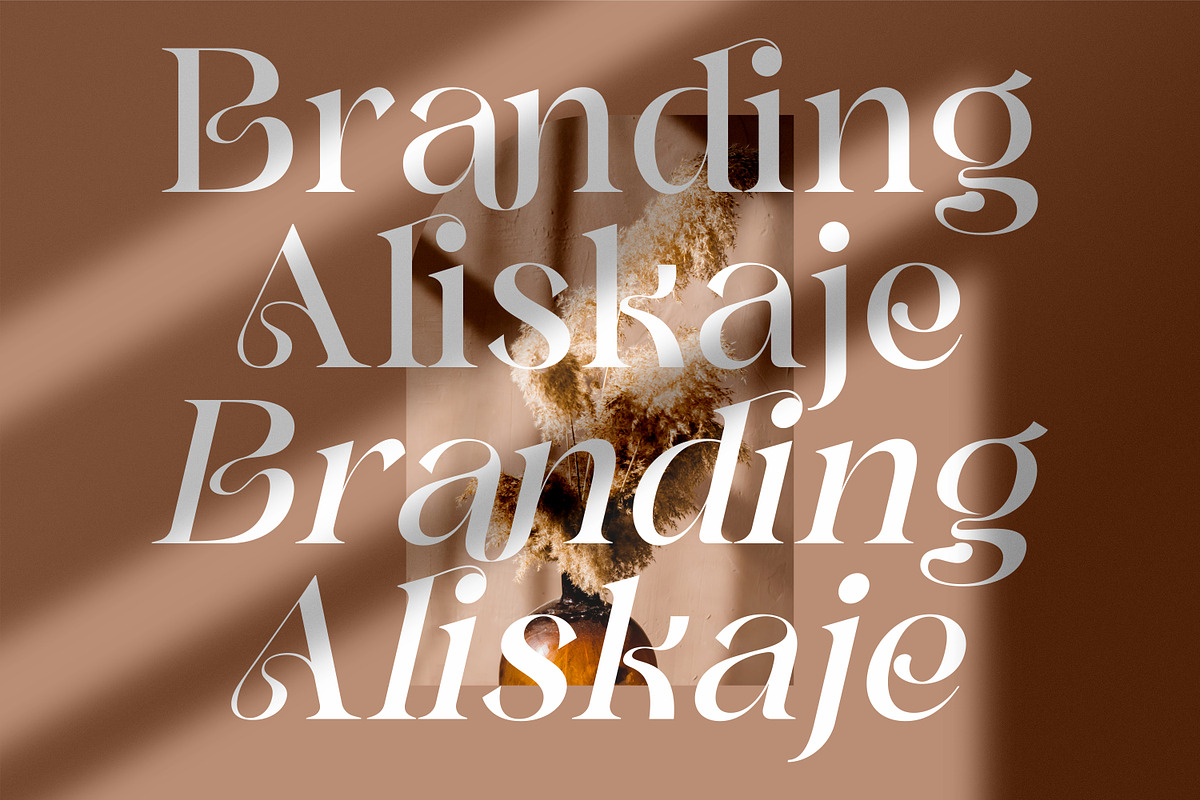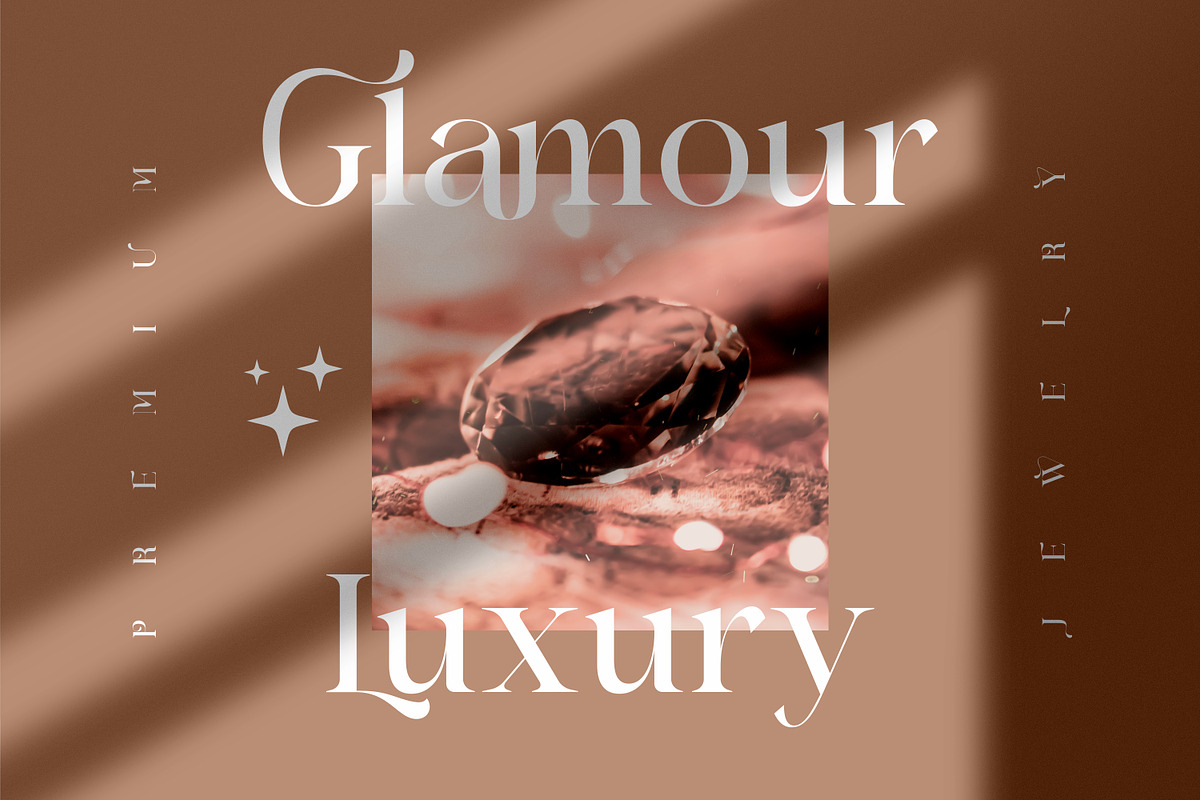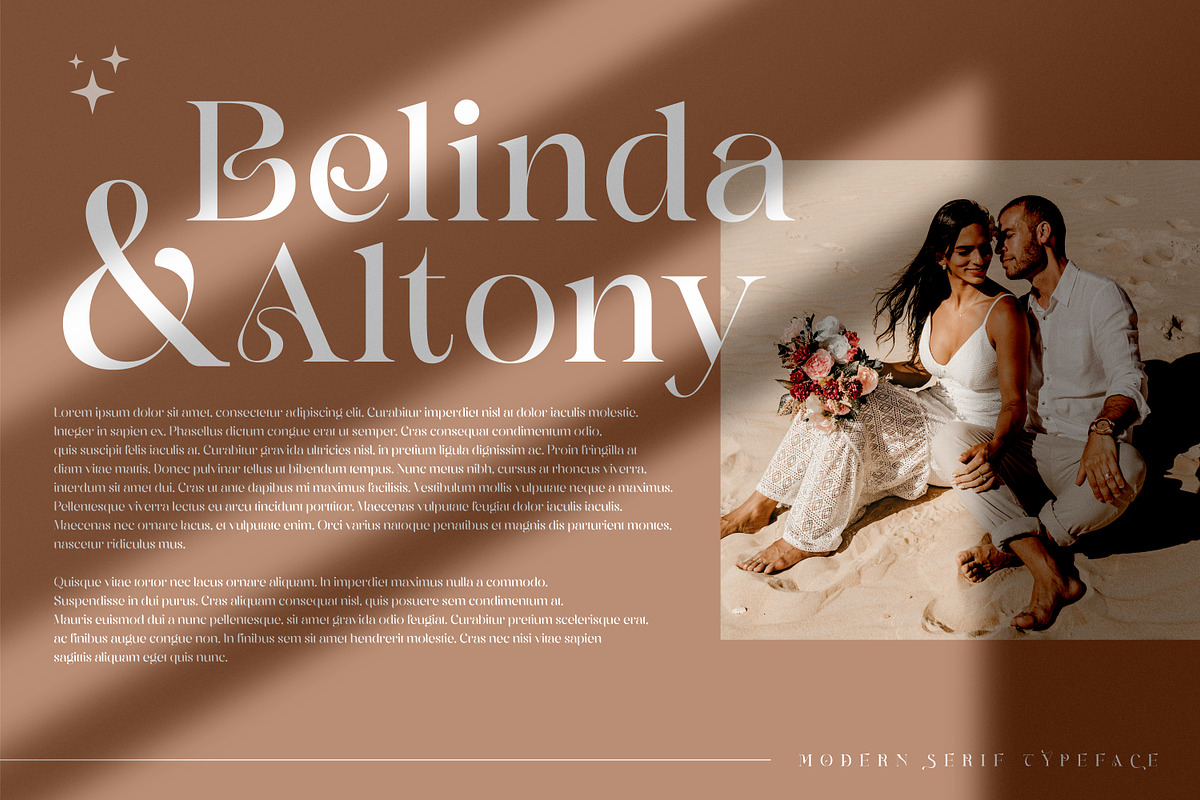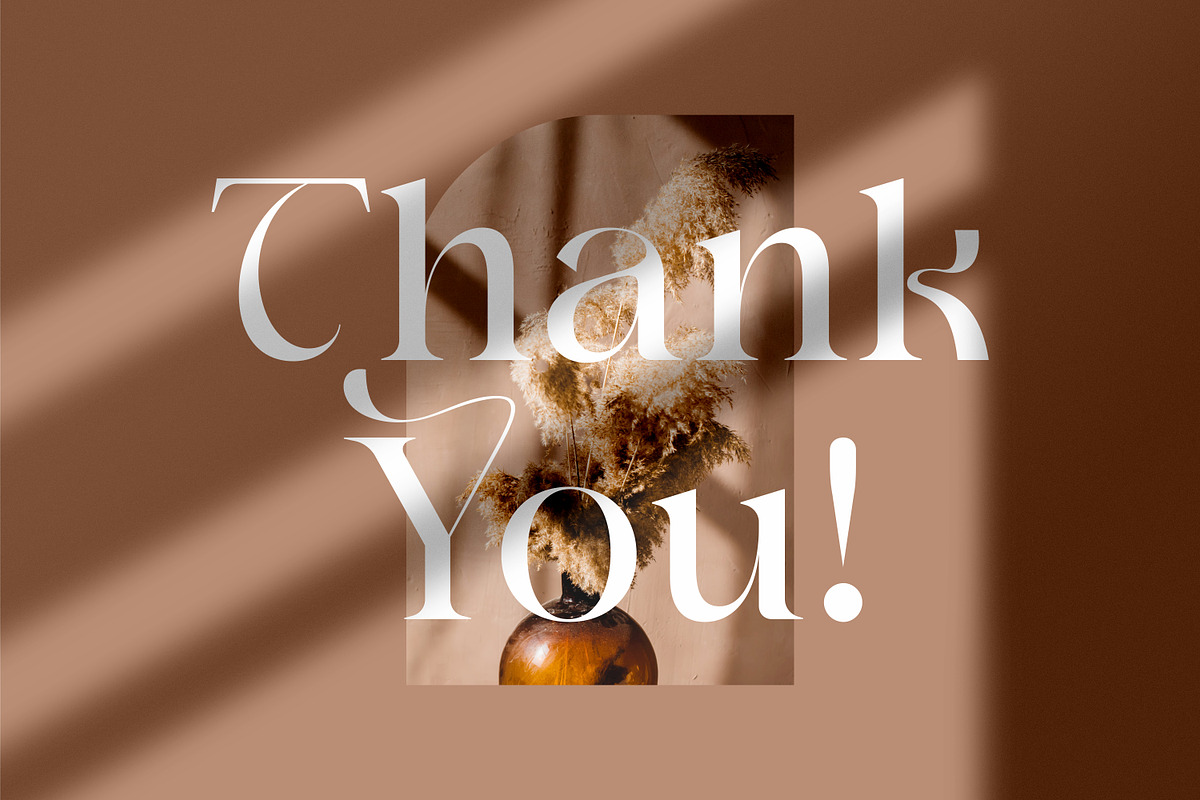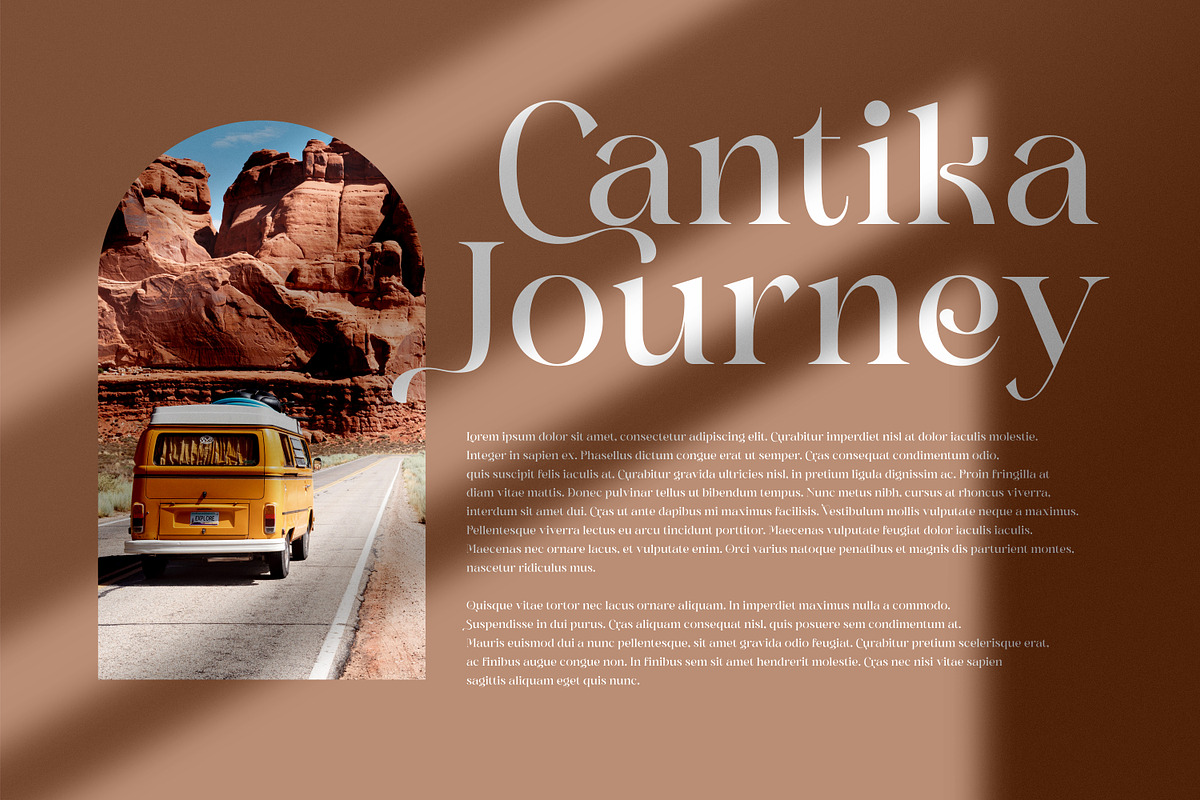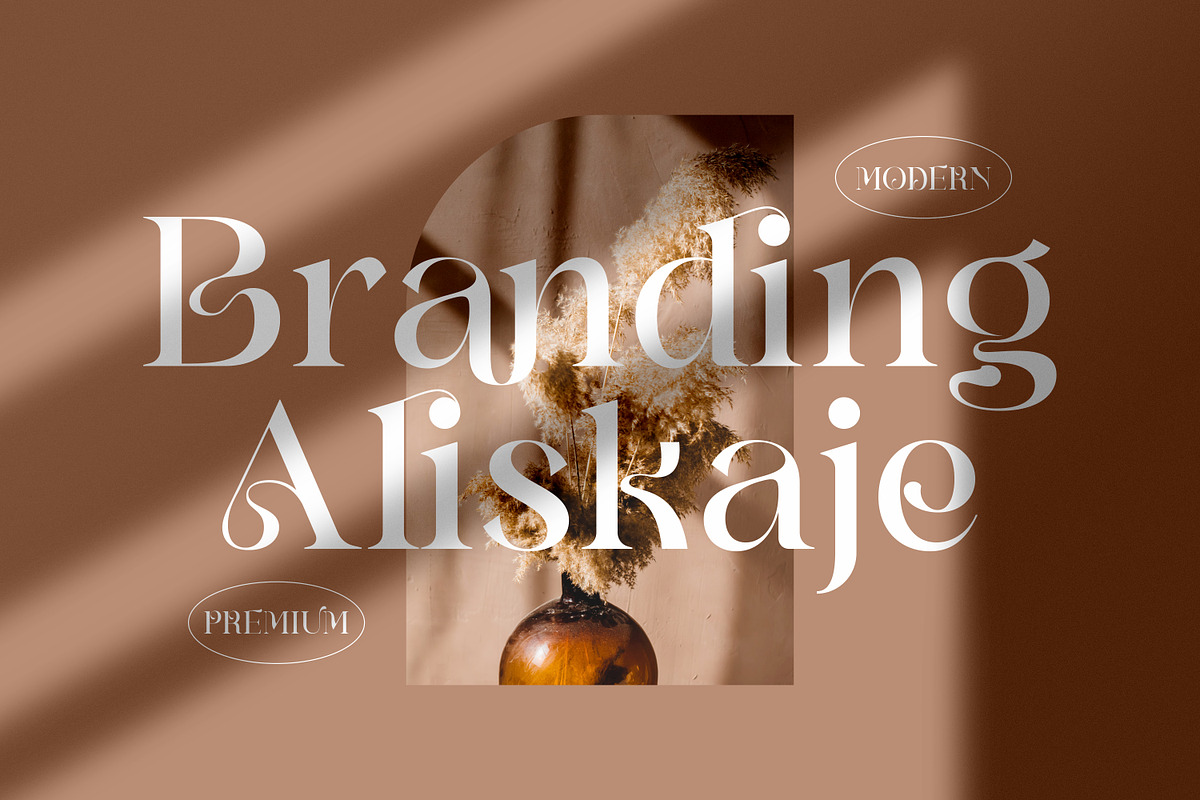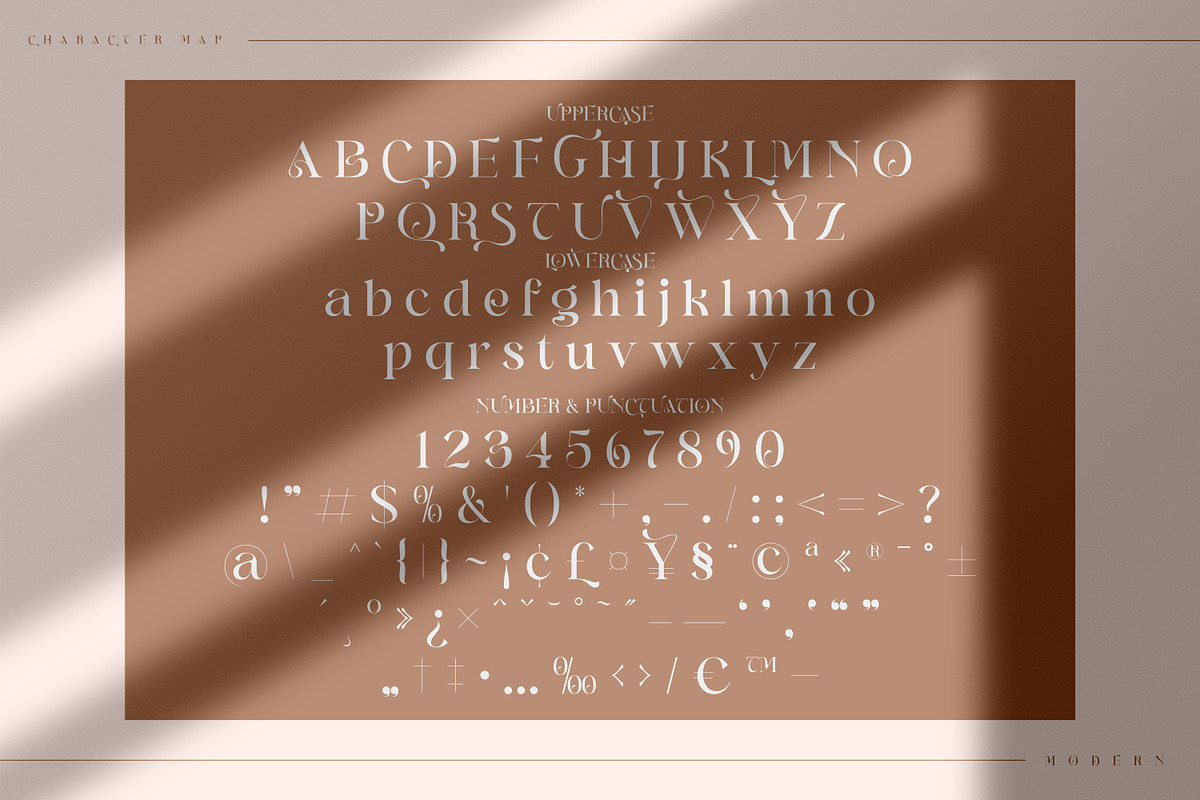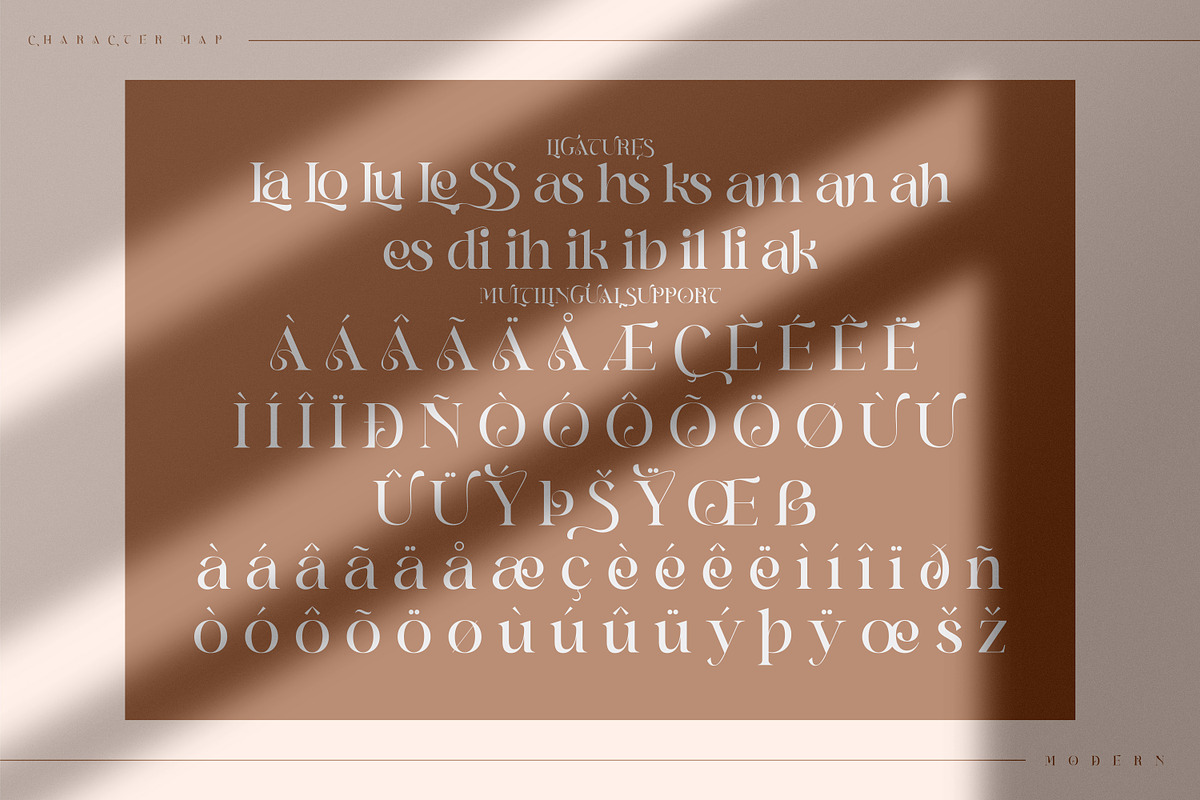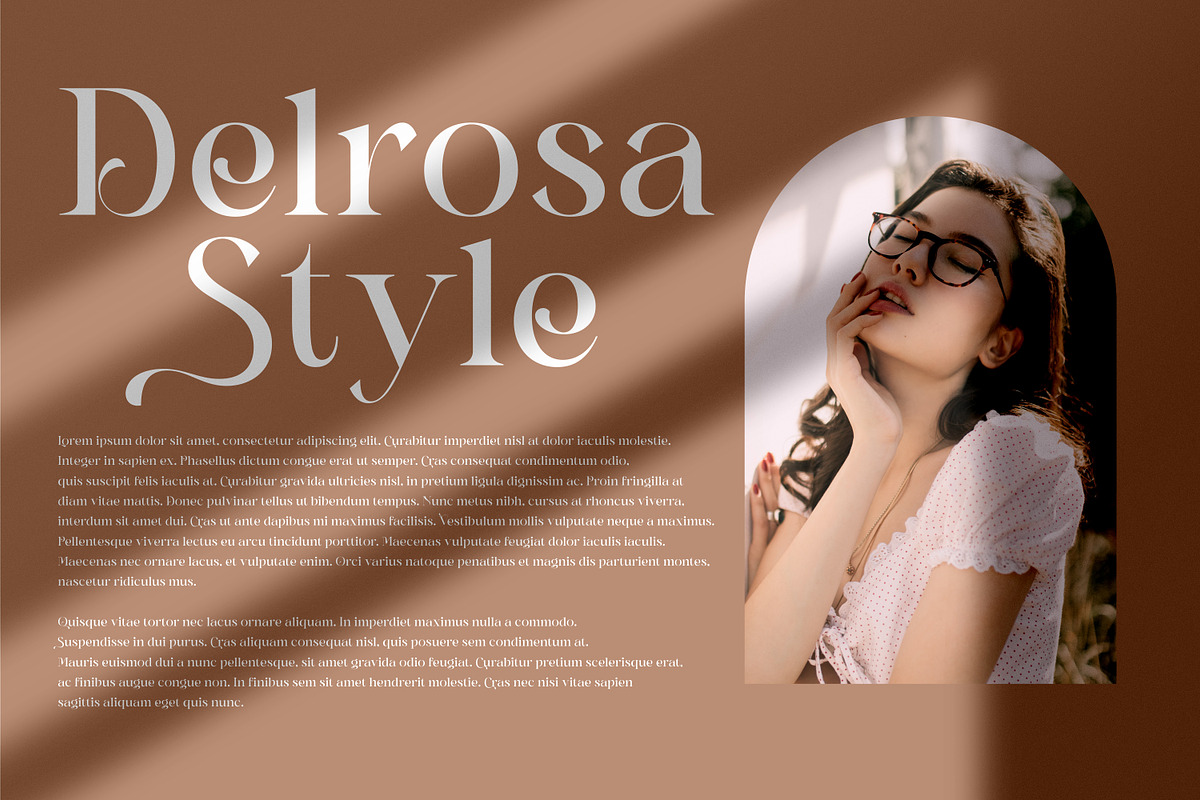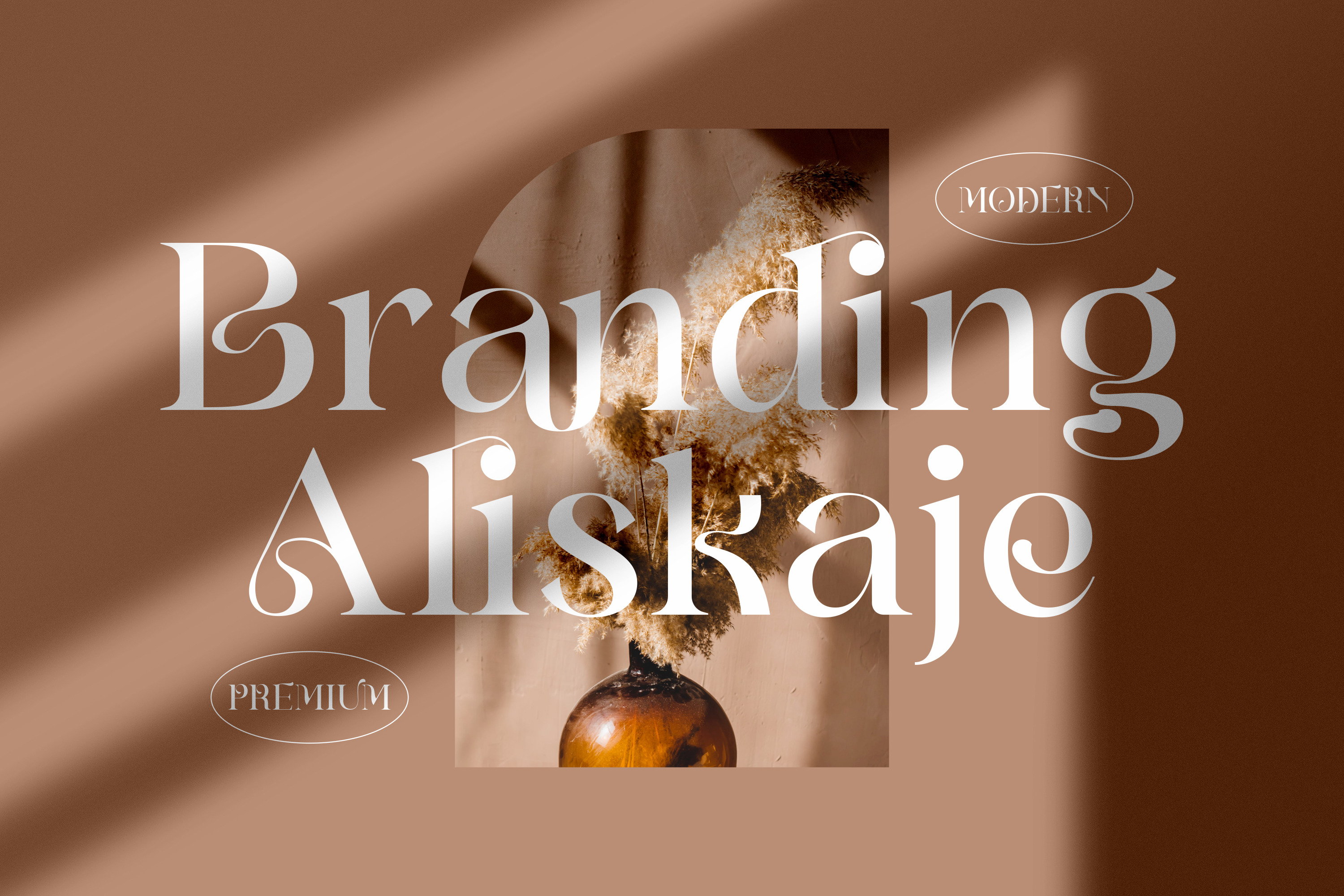
Branding Aliskaje Modern Serif Font
Proudly present Branding Aliskaje Typeface, created by Storytype, A serif modern and classic typeface that has own unique style & modern look. This typeface is perfect for an elegant & luxury logo, book or movie title design, fashion brand, magazine, clothes, lettering, quotes, and so much more.